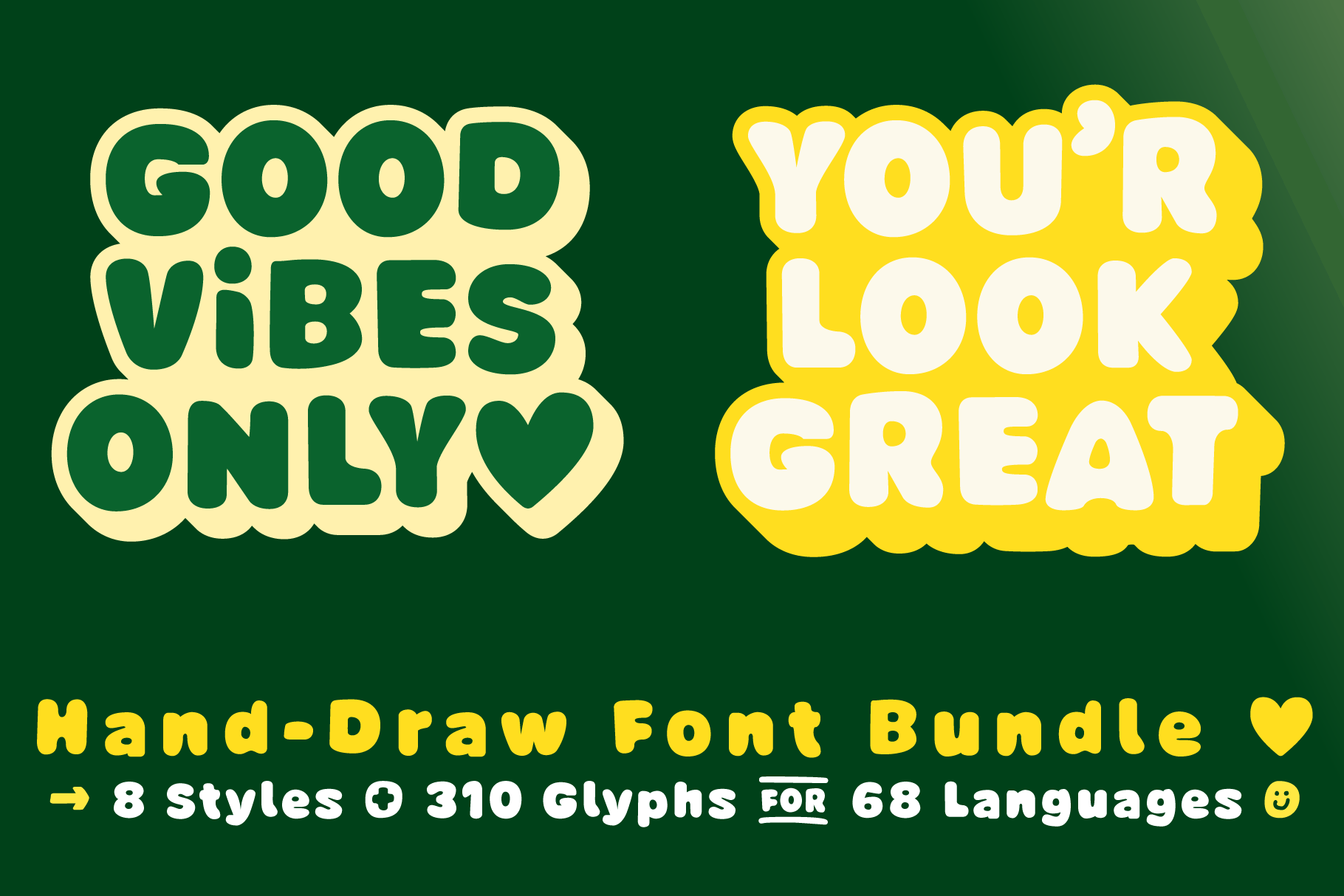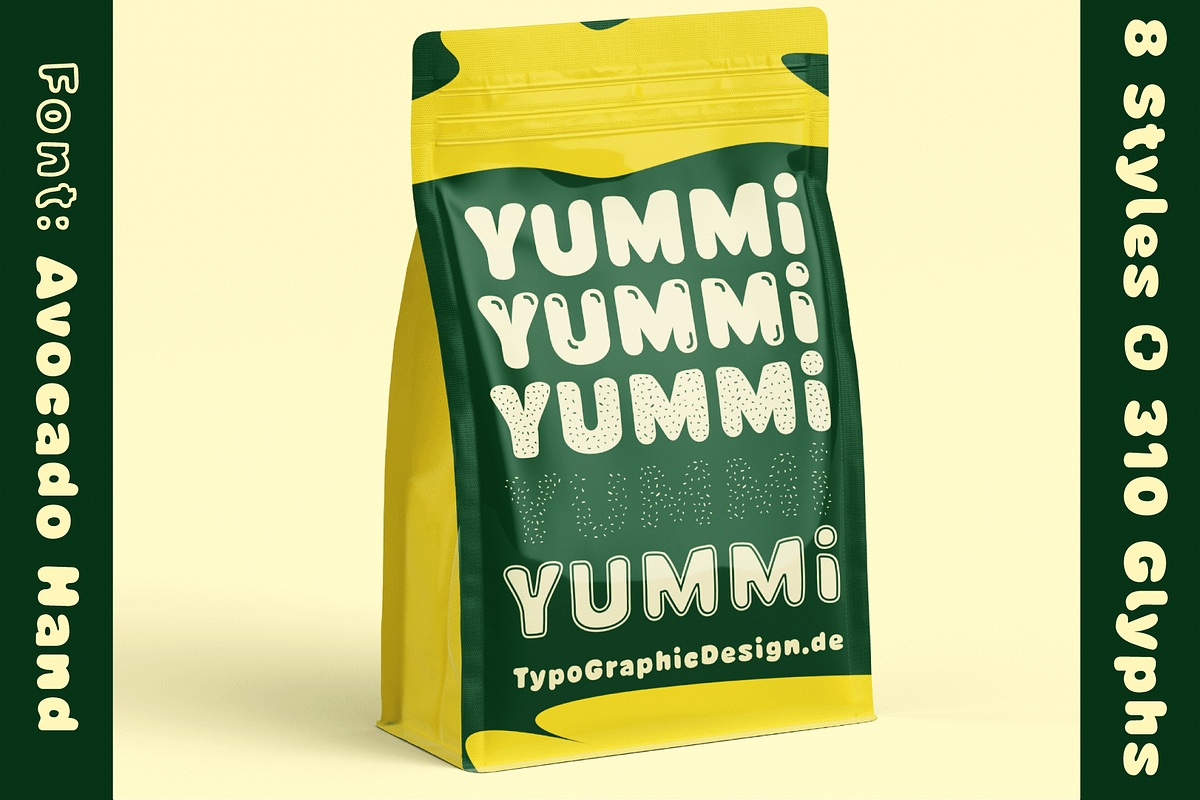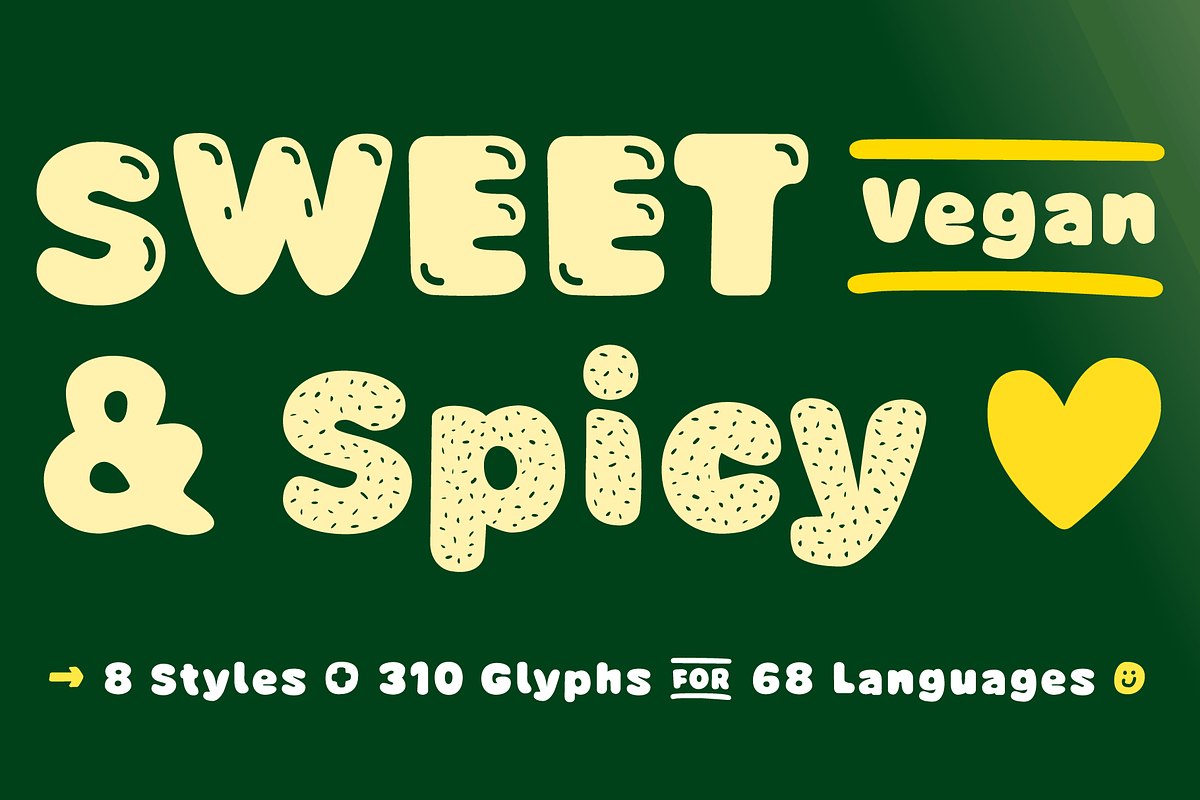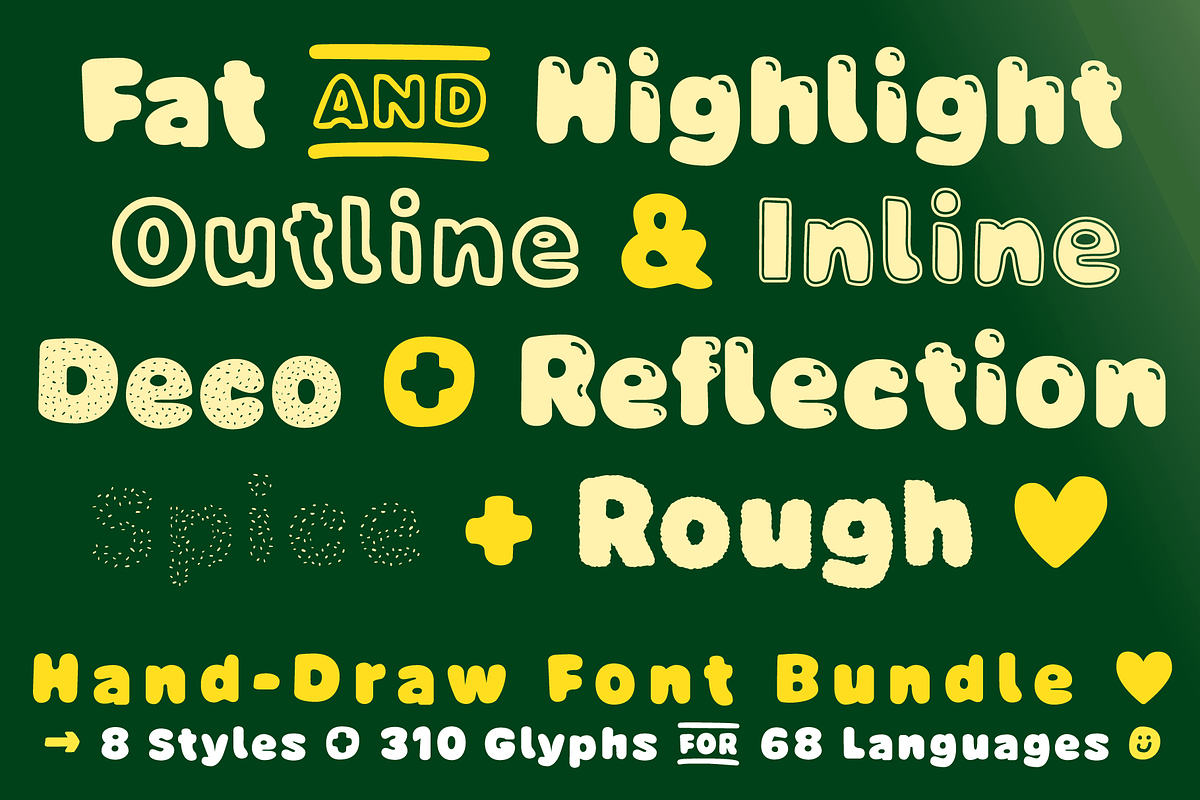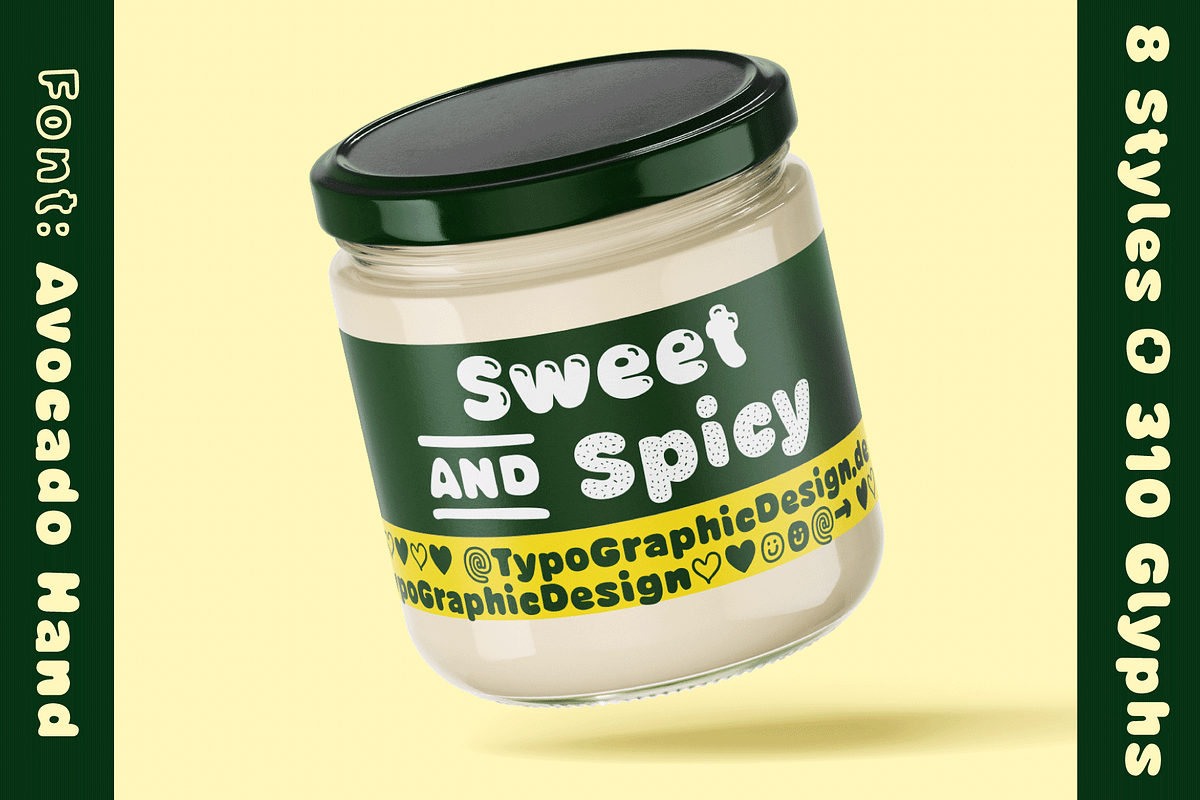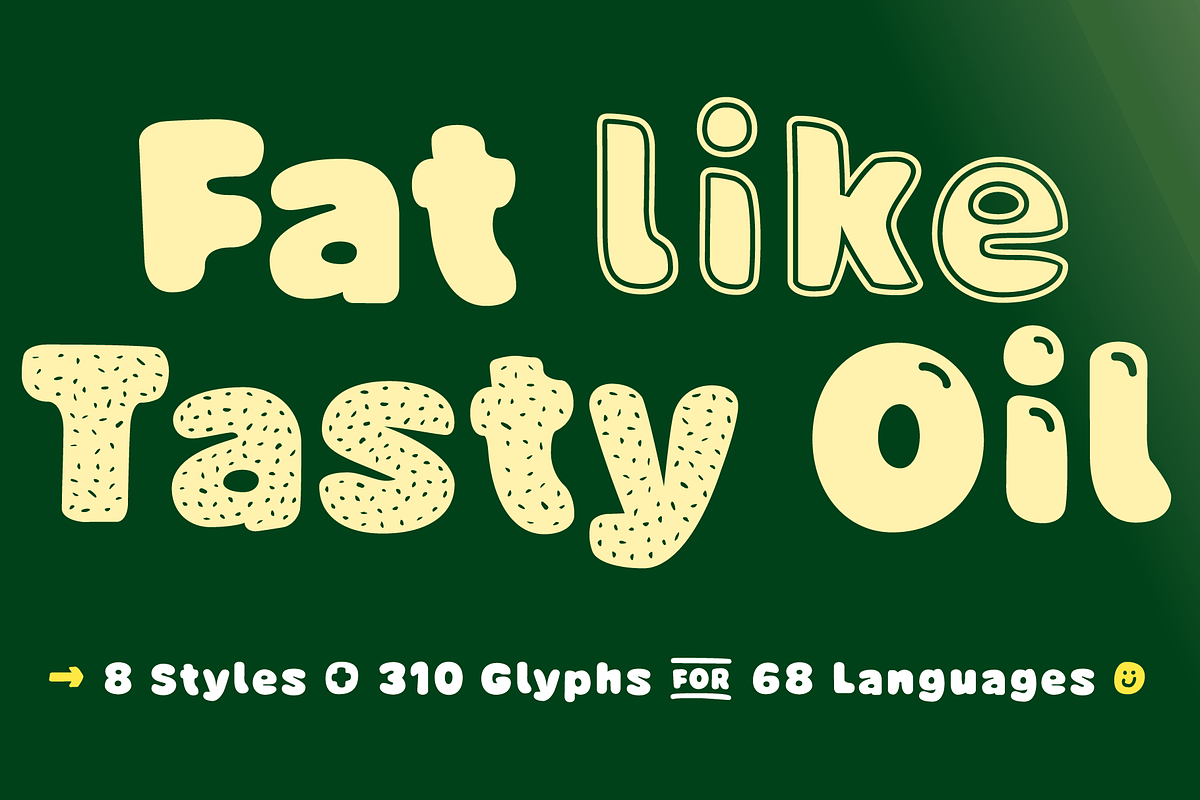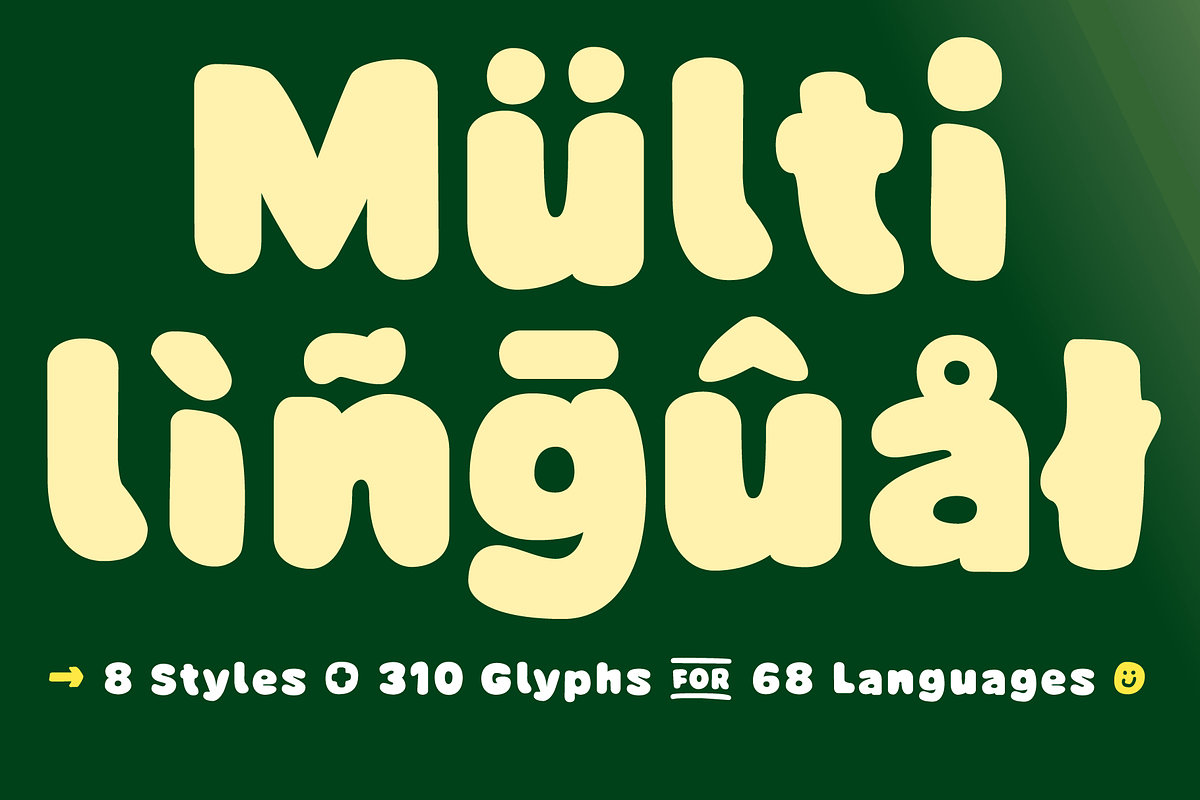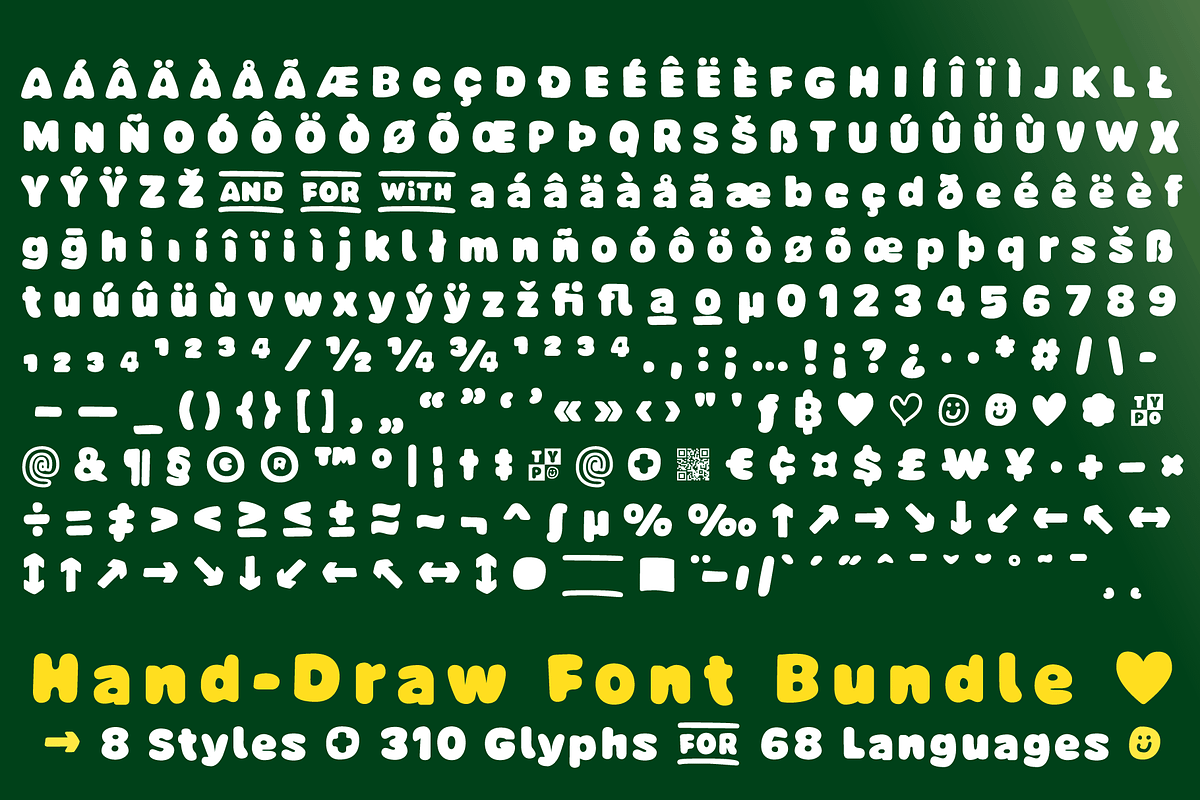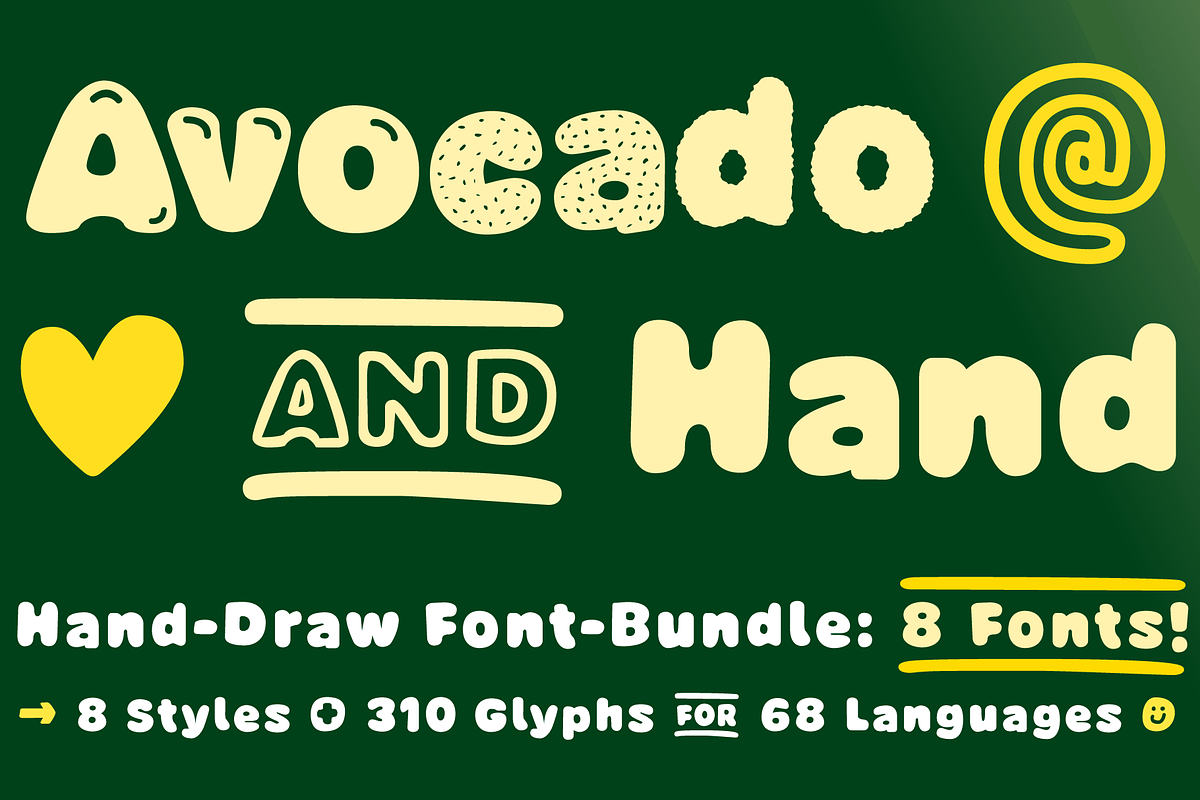
FONT Avocado 100% Handmade Bundle 9
The typeface Avocado Hand is designed as a handmade Display-Font with a comic friendly and authentic hand-drawing character. The forms are based on a classic sans serif. Hand-drawn lines and playful details give the font a personal and organic feel. Developed in 2026 for the font foundry Typo Graphic Design by the graphic- & type-designer Manuel Viergutz. Designed with love, pencil, tablet & computer.
8 font-styles (Spice, Rough, Reflection, Outline, Inline, Highlight, Fat, Deco) with 310 glyphs (Adobe Latin 1) for 68 languages incl. decorative extras like icons, arrows, catch words, dingbats, emojis, symbols, geometric shapes (type the word #LOVE for as OpenType-Feature dlig) and stylistic alternates (2 stylistic sets). 15 OpenType features.
For use in logos, packaging for drinks & food, magazines, posters, advertisement plus as webfont for decorative headlines. The font works best for display size.